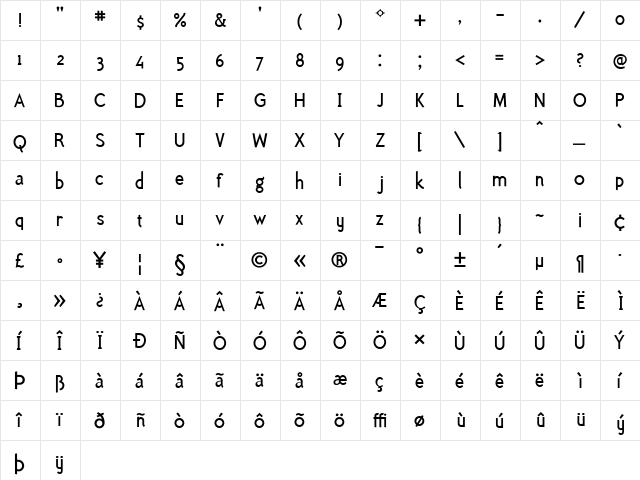
Polymer-Medium Roman
Design Context for Polymer-Medium Typeface
Polymer-Medium is a composed and adaptable typeface that performs quietly and consistently across a wide range of design contexts.